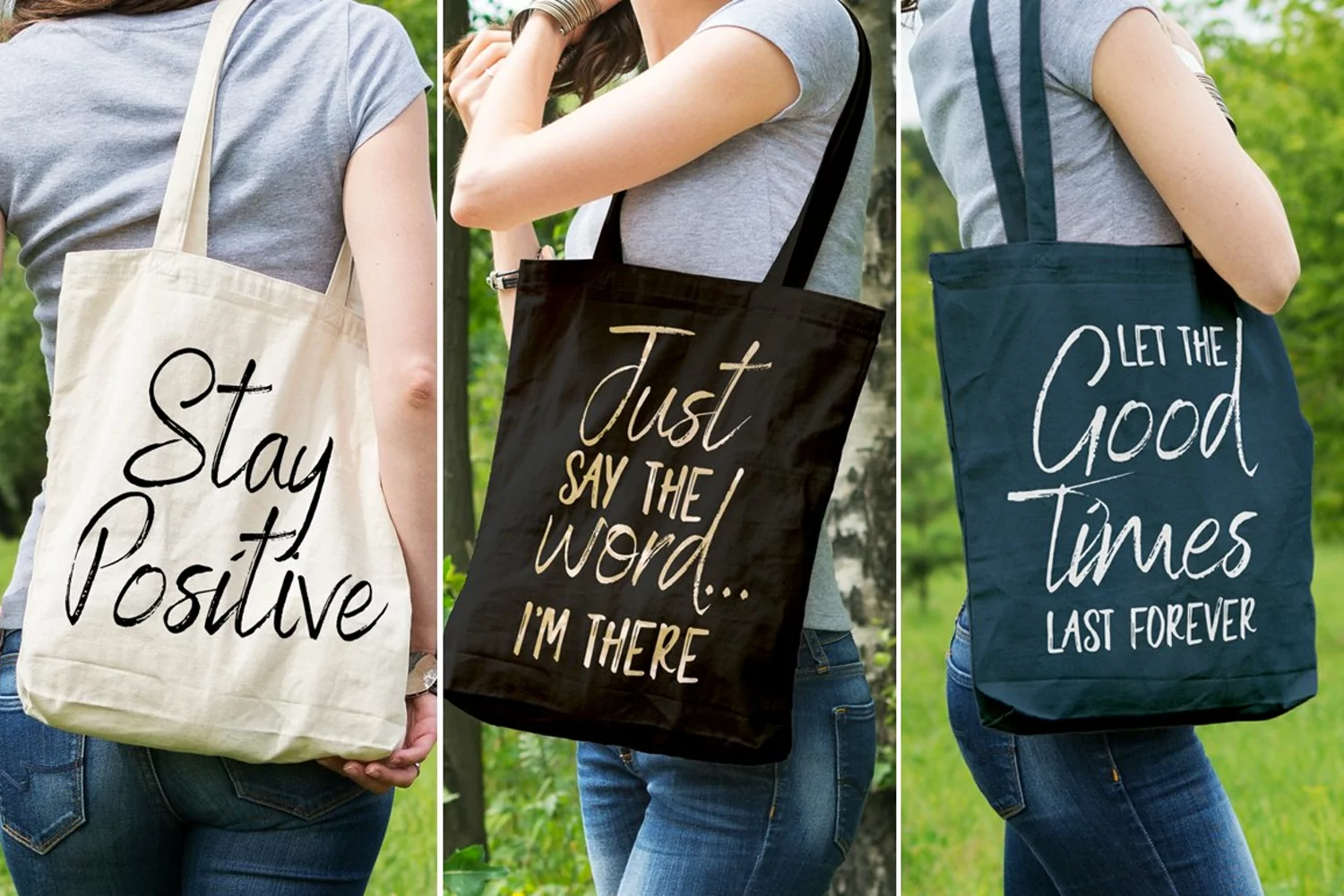
Mistress Benedict Brush font duo Hand lettered Script Fonts
Introducing Benedict & Mistress Benedict - a pair of hand brushed fonts attentively designed to work together, helping to produce beautiful typography!
This pack of two fonts works so well together and can be used for so many projects, from food packaging to a simple quote that you upload to Instagram. Use them on your t-shirts, mugs, cushions, handmade card designs, anything you like!
Benedict Font has a neat, handwritten style to it and it's tall ascenders gives that added elegance. With it also being hand brushed, Benedict is perfect for all hand lettering typographic designs and works well for short advertising headlines and sub-headers. Benedict has a full set of uppercase and lowercase alternates giving you a different style - it's like two fonts in one!
Mistress Benedict was hand brushed with the same brush pen and is the perfect companion for Benedict. It's an all caps font where the alternates are actually the lowercase letters. It looks gorgeous on it's own too!
Like Benedict, Mistress Benedict also supports international languages.